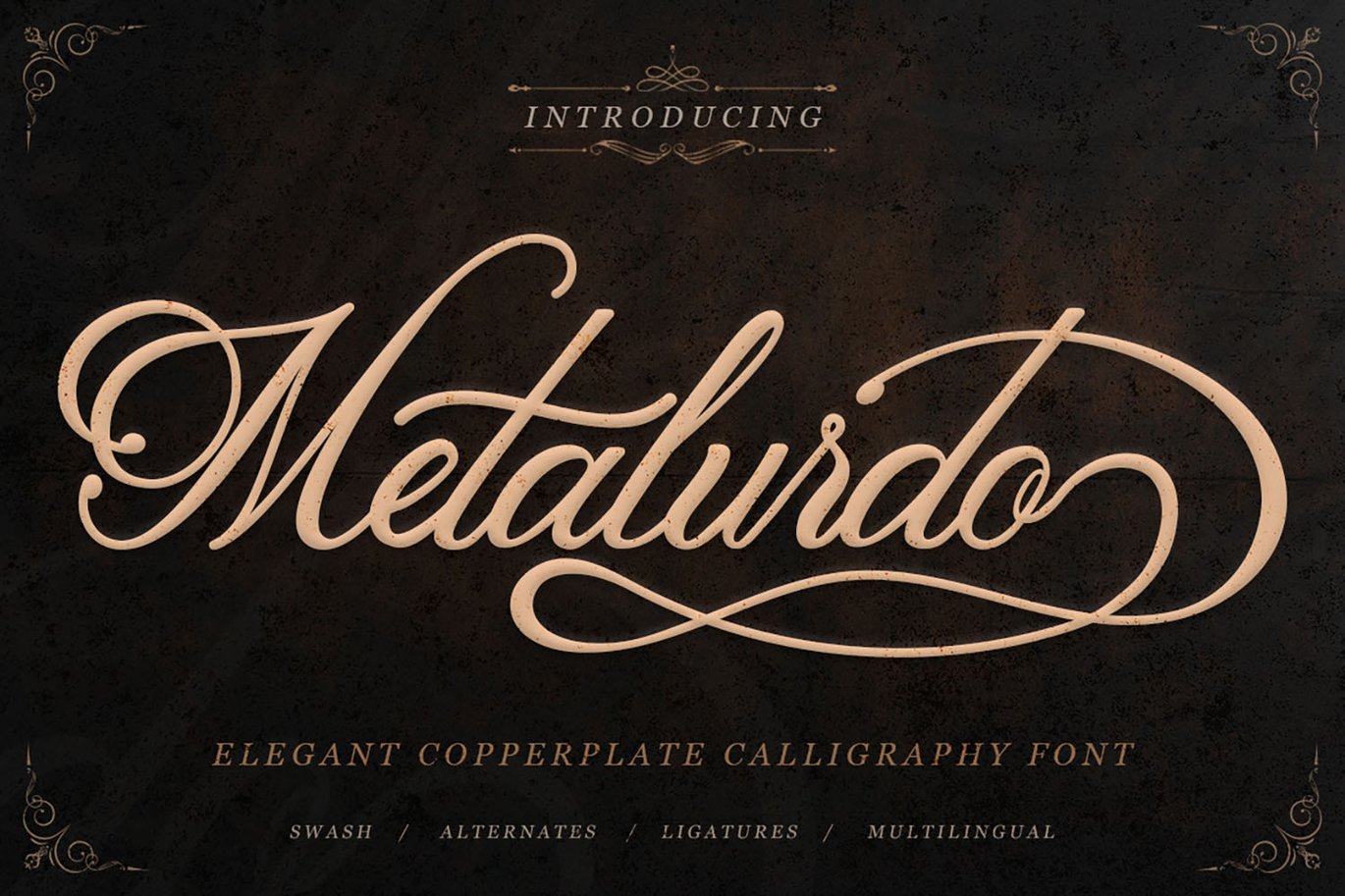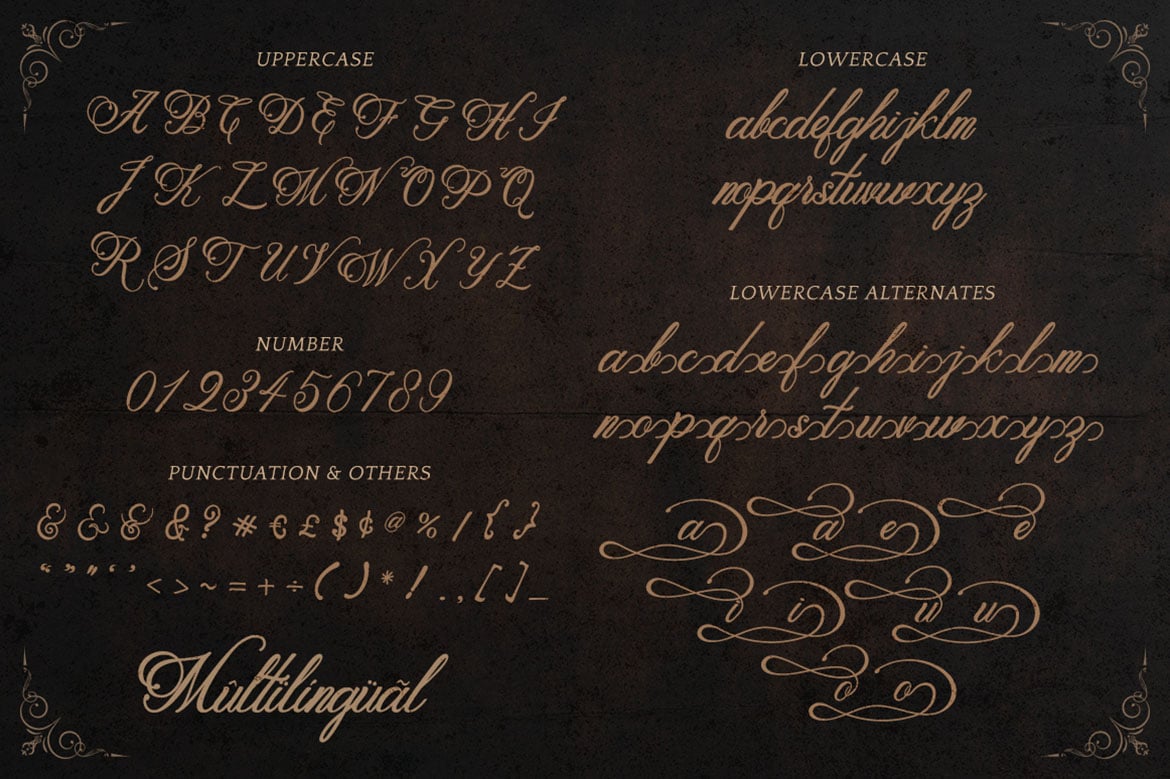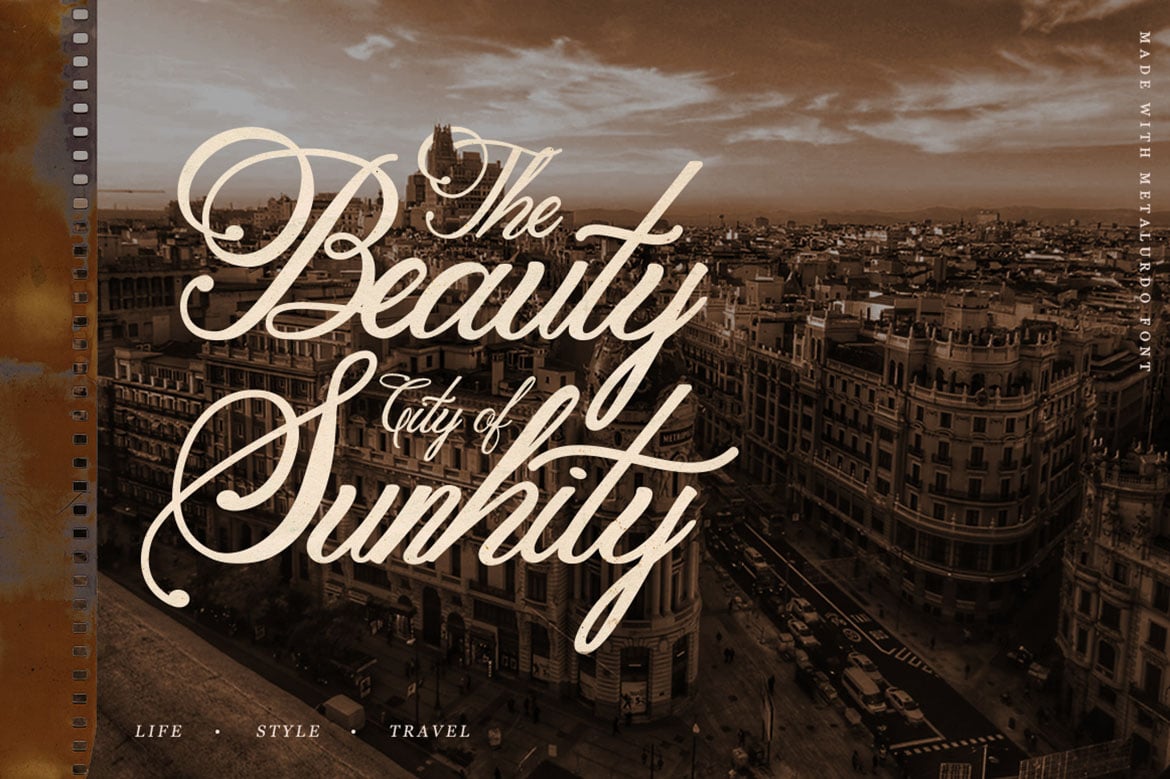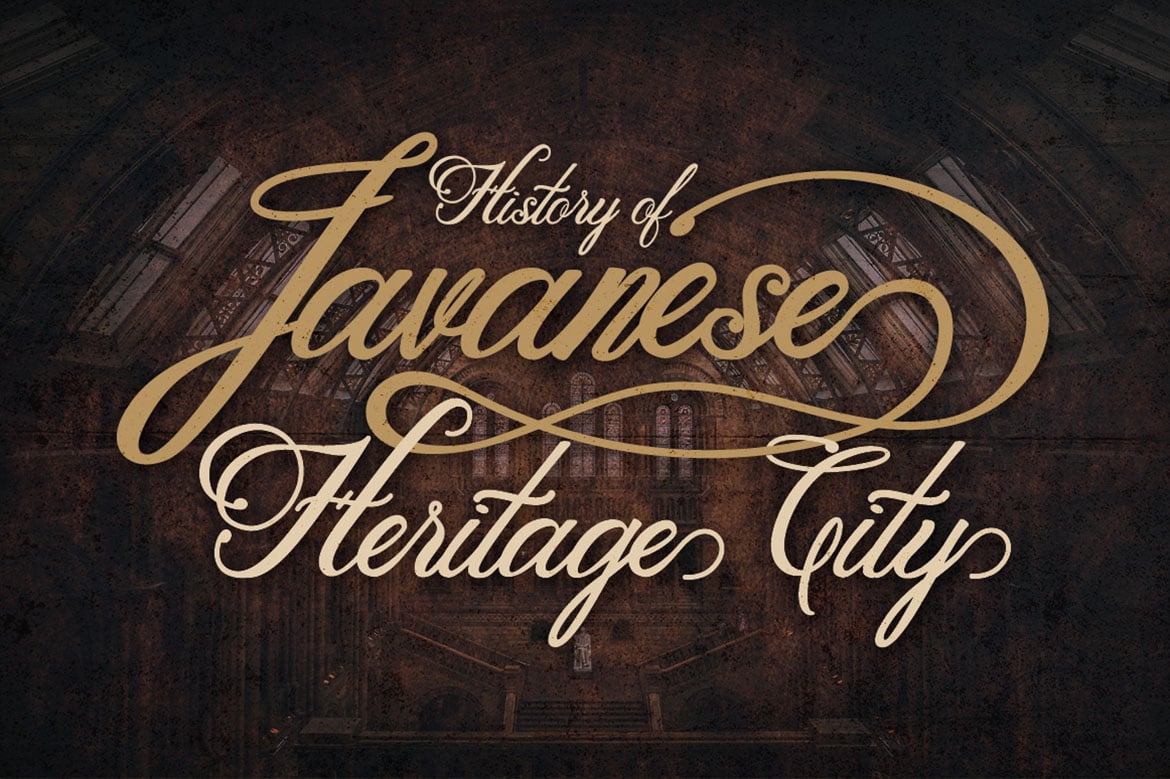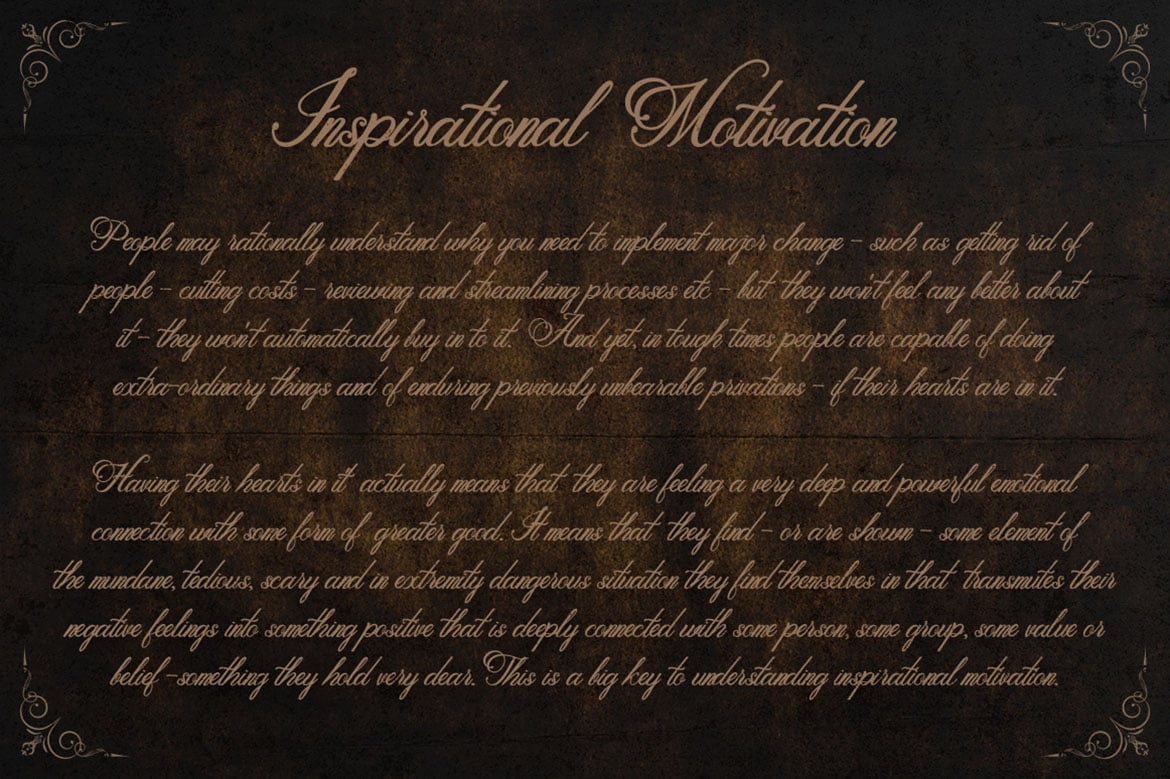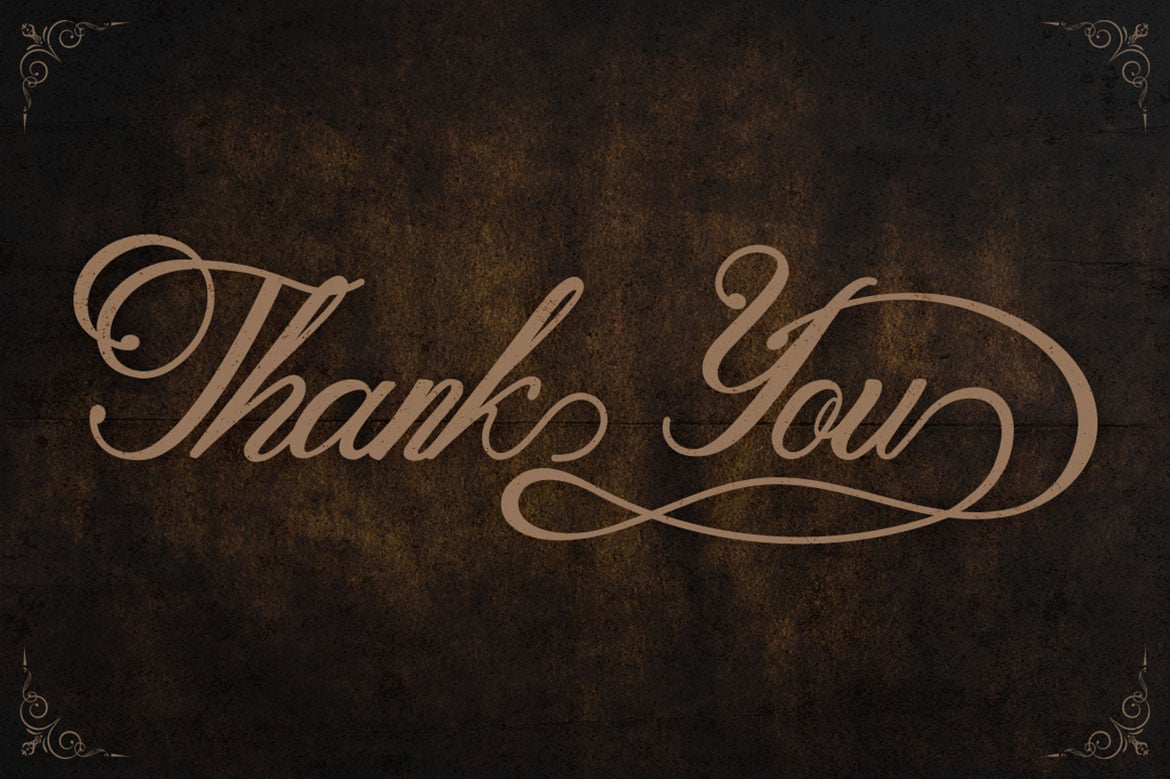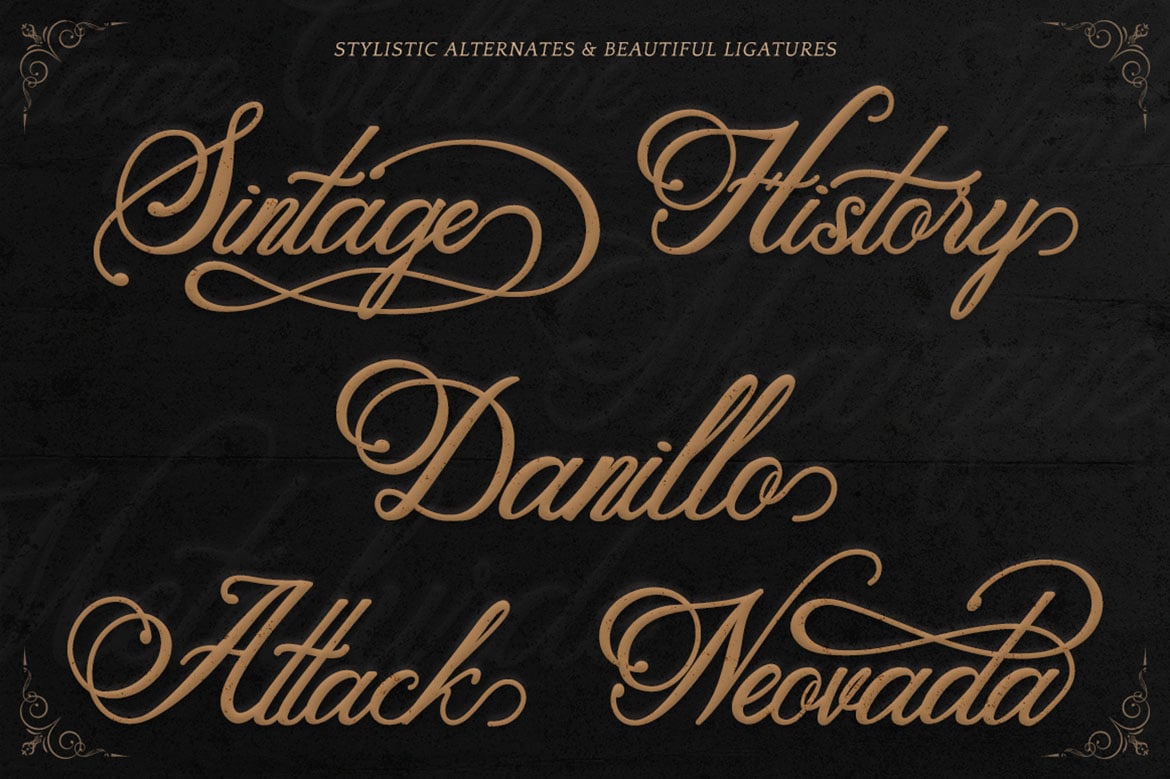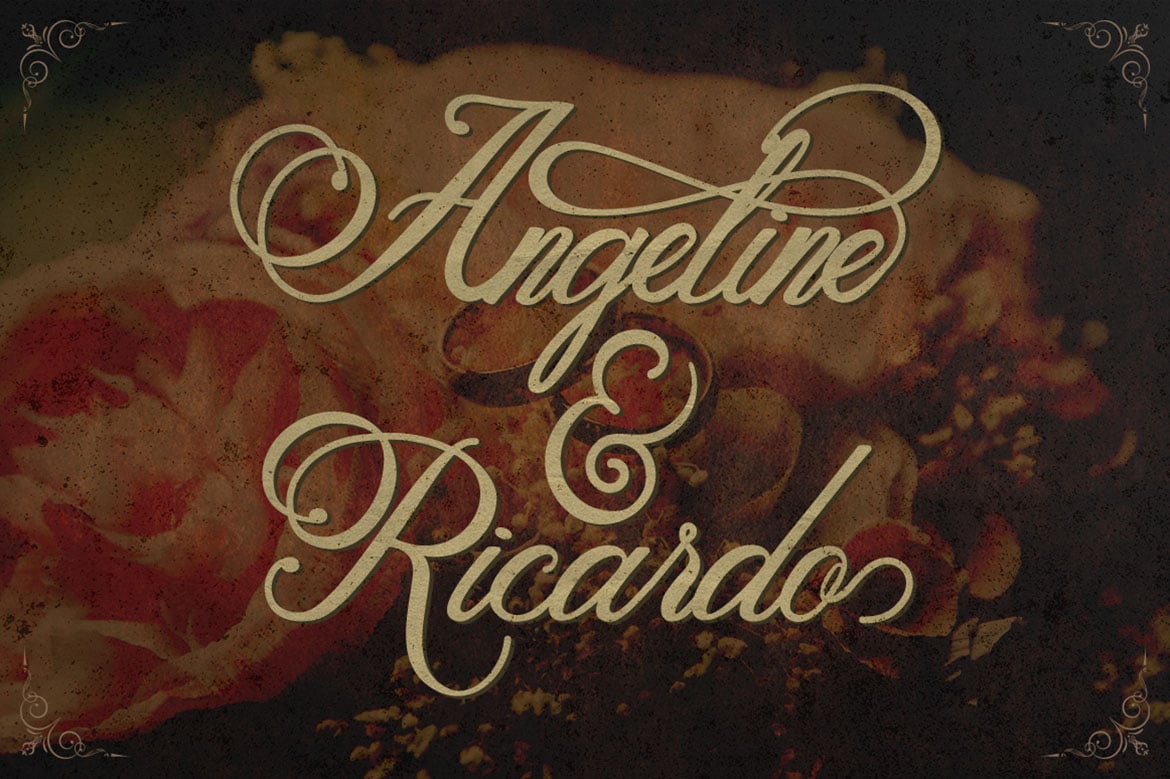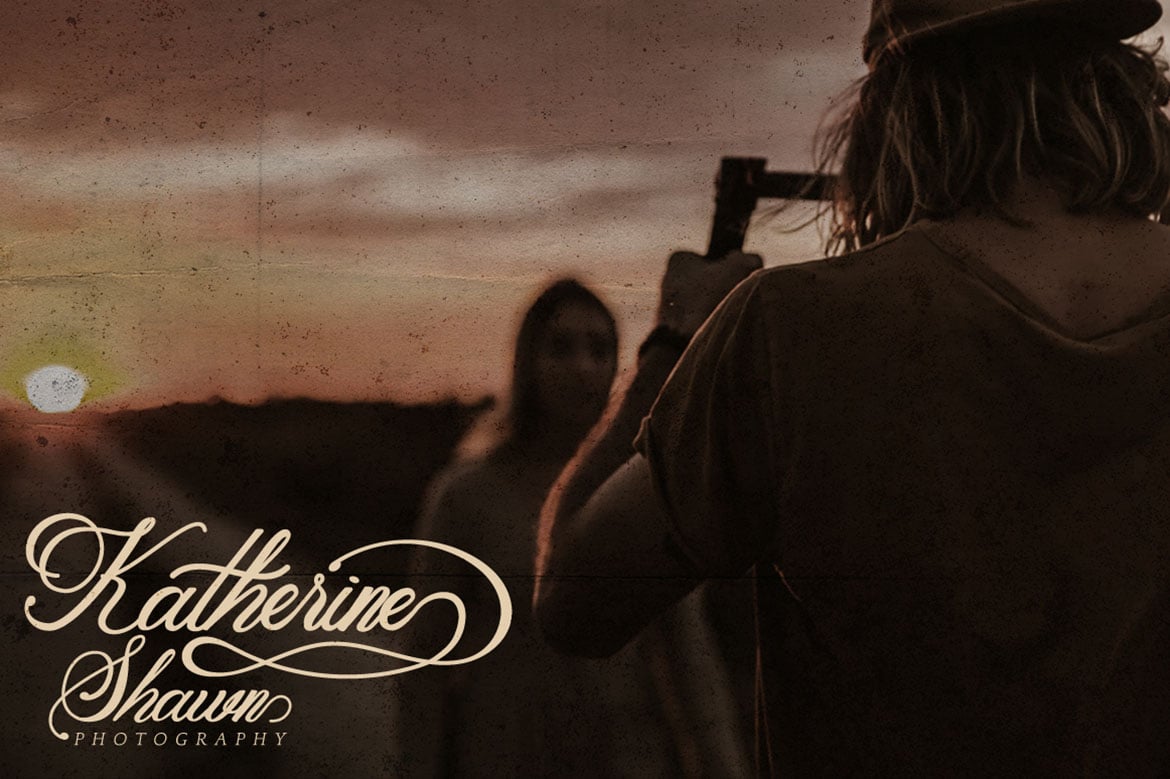
Metalurdo – Elegant Calligraphy Font
Metalurdo font is an elegant copperplate calligraphy font with a natural & stylish flow.
Metalurdo font is perfect for many different projects such as logos & branding, invitation, stationery, wedding designs, social media posts, advertisements, product packaging, product designs, label, photography, watermark, special events, or anything.